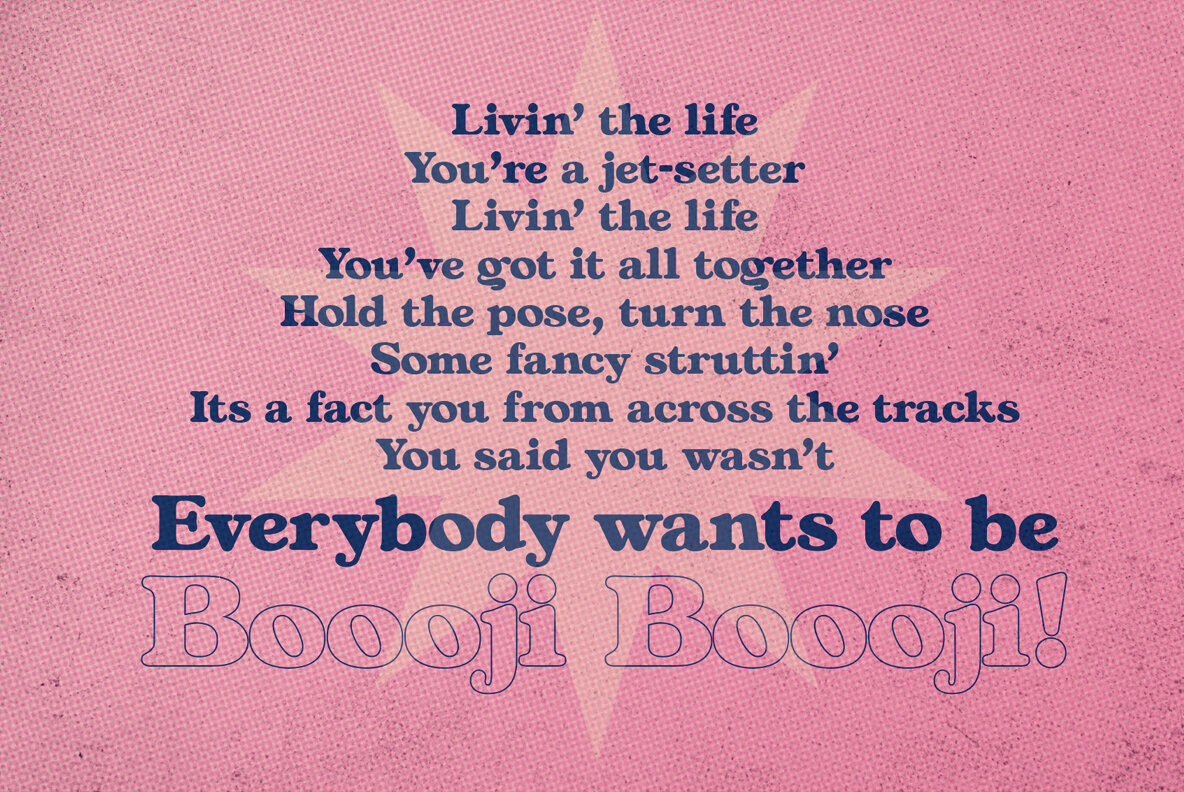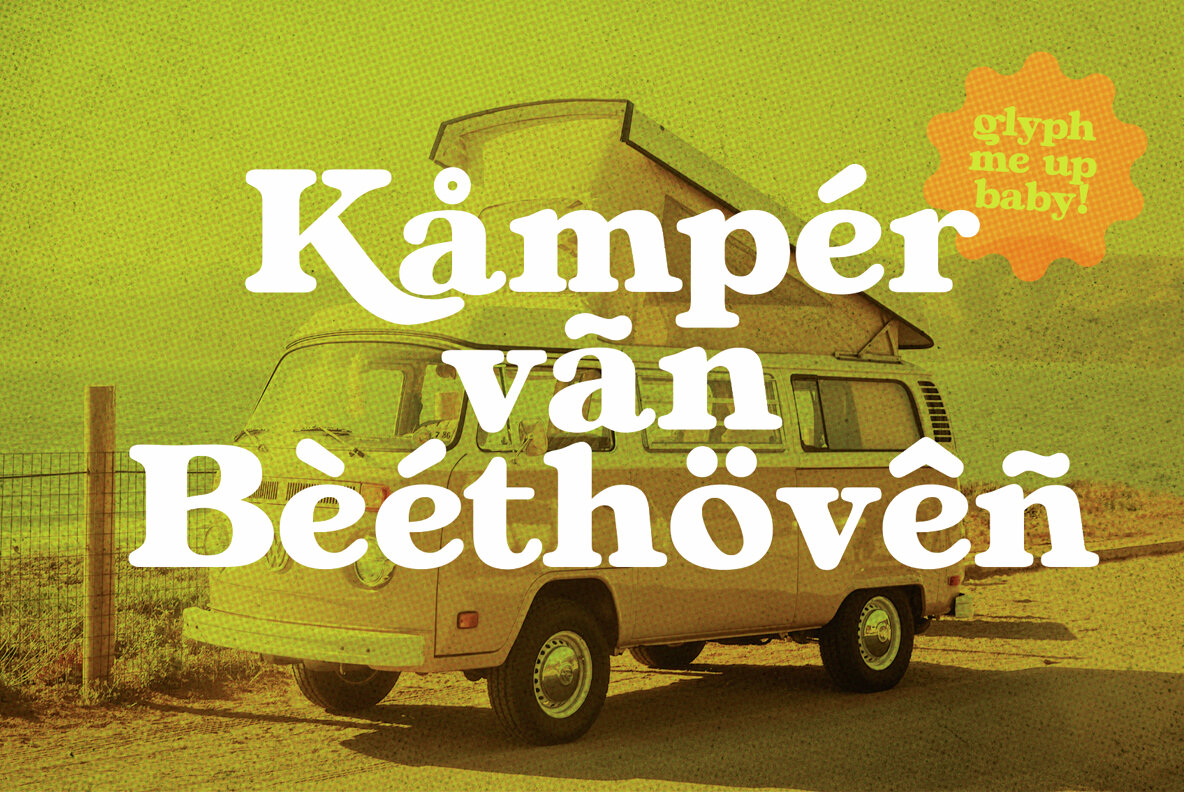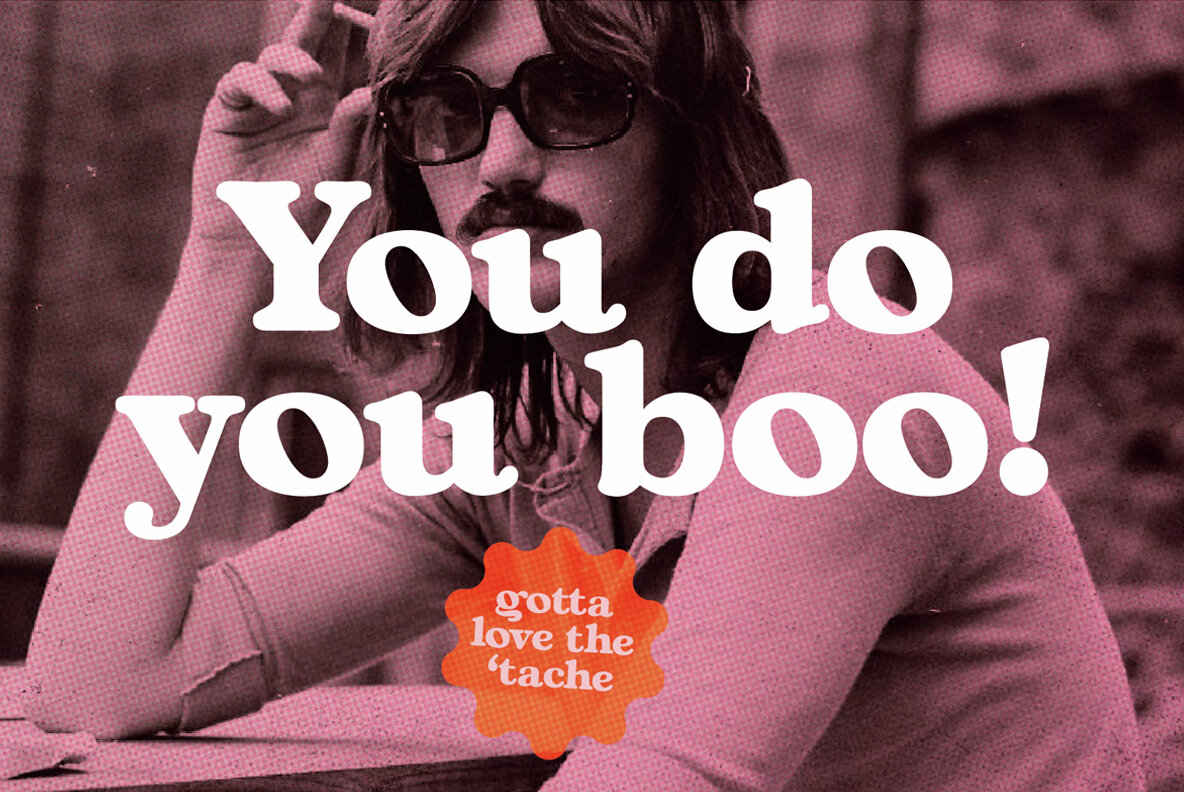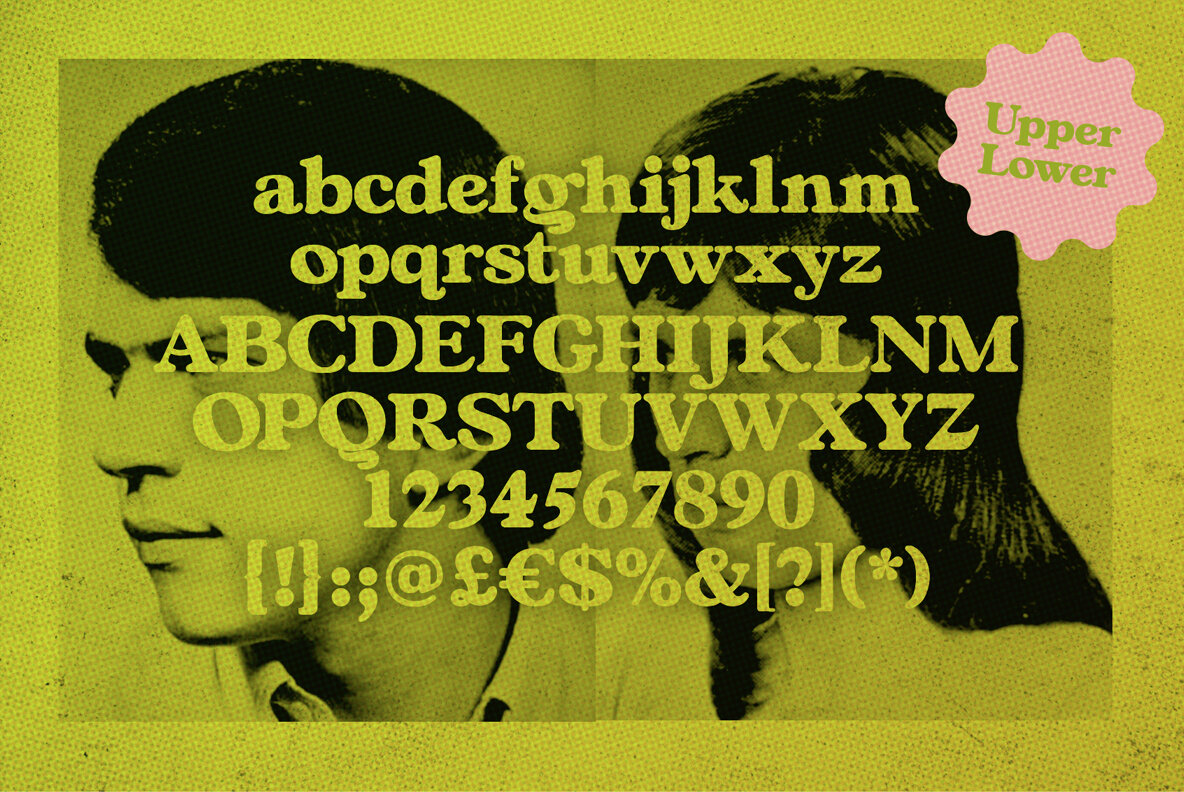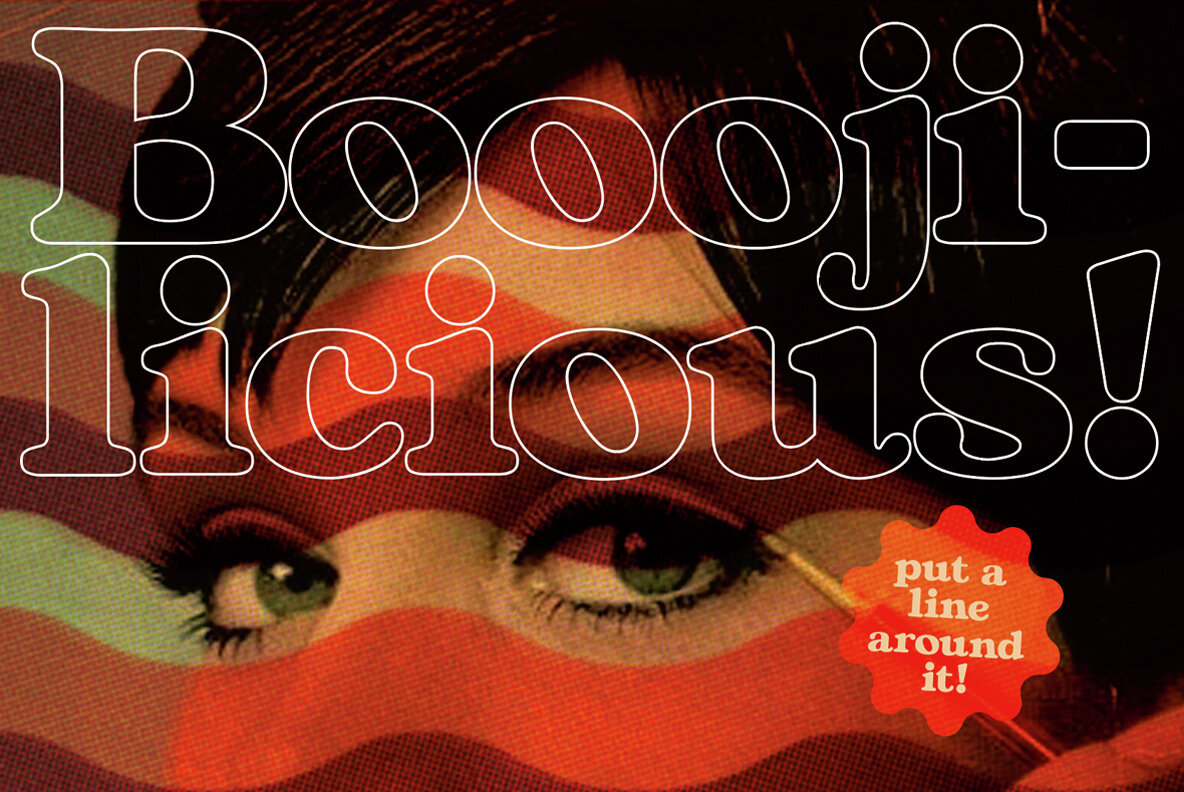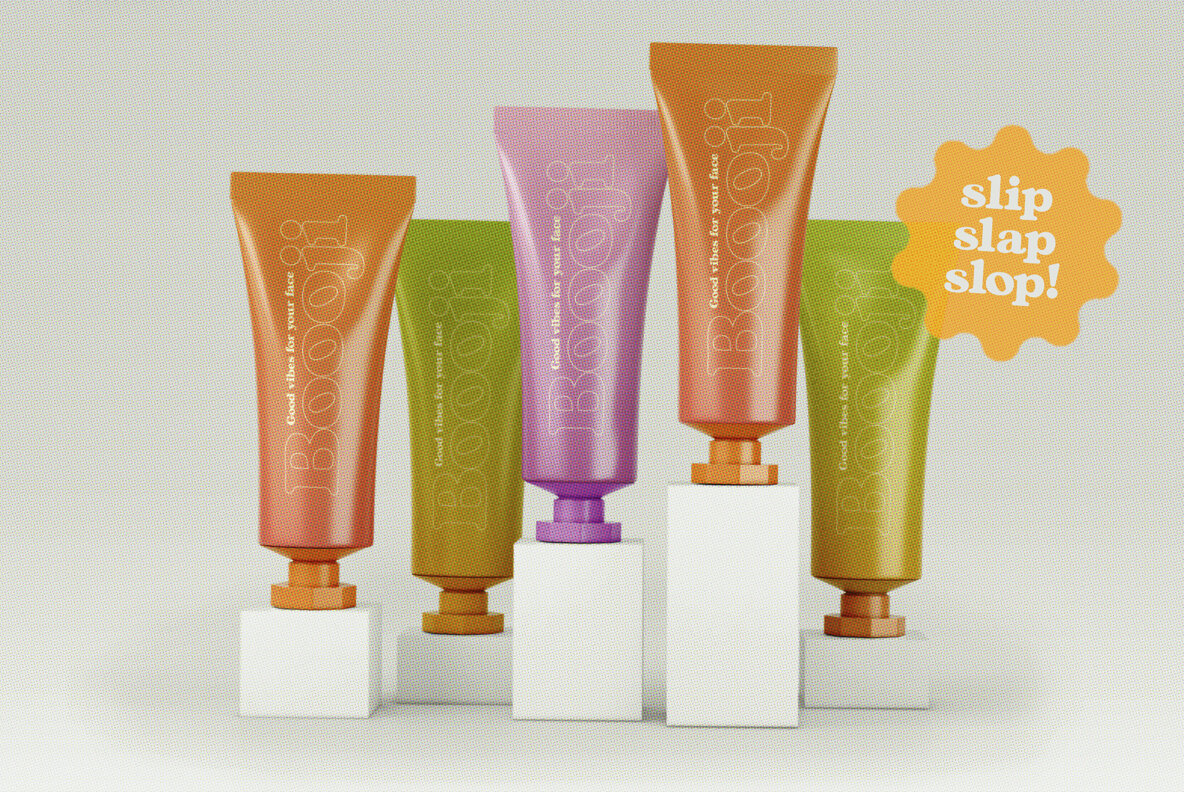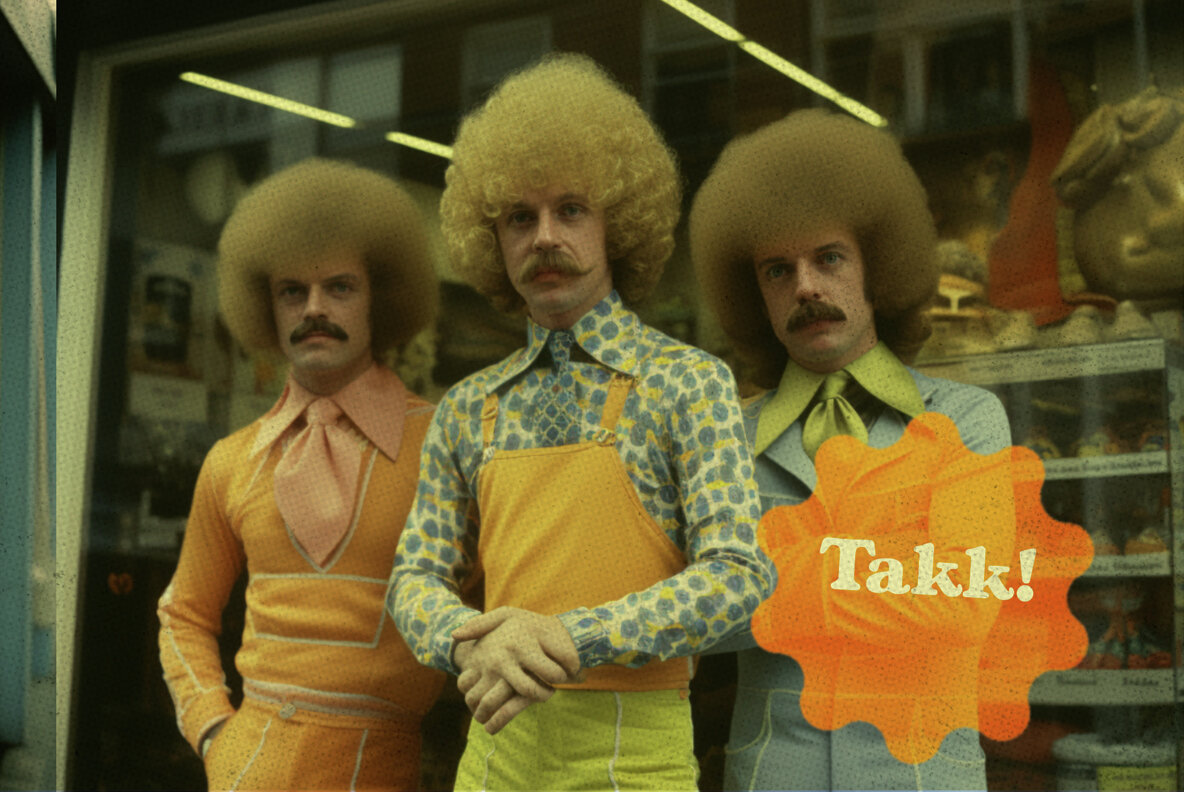
Boooji: Retro 70s-Inspired Font with Flair
Dive into a world evocative of the bold styles from the 1970s with Boooji, a font that exudes cool and charismatic charm. Ideal for projects that seek a nostalgic nod to the past, Boooji brings out the groovy essence of the disco era.
• Retro Style – Embraces the dynamic and lively aesthetics of the 70s.
• Character – Perfect for making bold, expressive statements.
• Versatility – Suited for various design needs, from posters to logos.